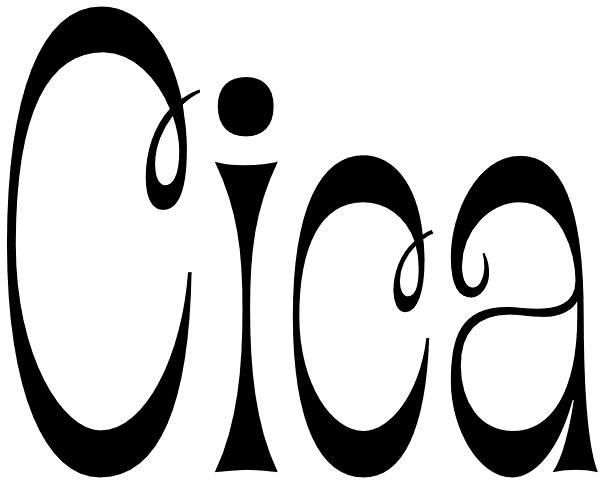
Cica
Ok, I'm allergic to cats and have never had one, but I can still create a typeface that embodies feline character! Cica combines the careful nature of cunning cats with the playfulness of kittens. It's simply fun to use and expresses multiple...